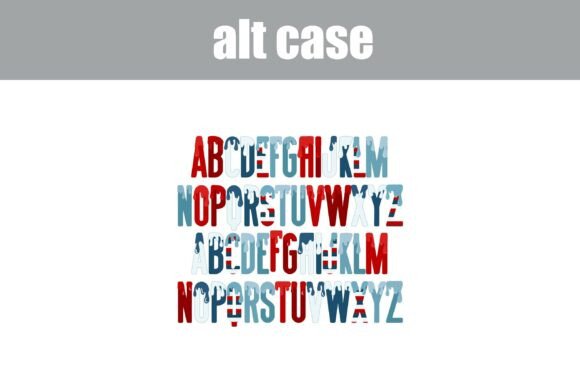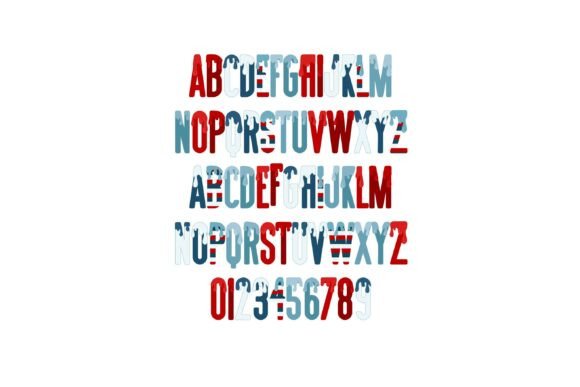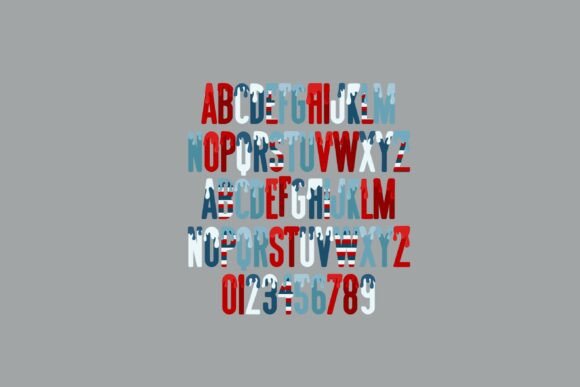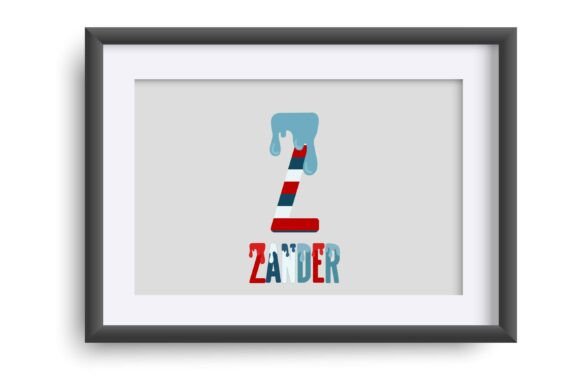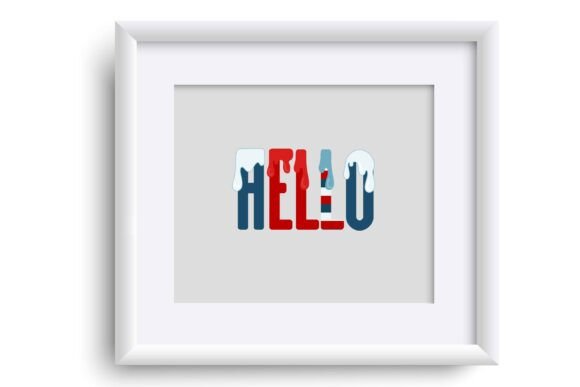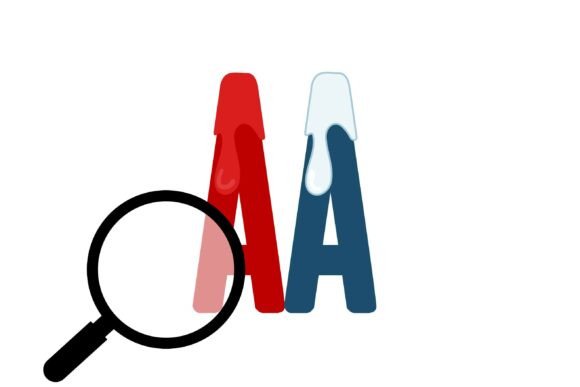
Introducing the Art Party Patriot Font: A Vibrant and Versatile Addition to Your Design Arsenal
Are you tired of using the same old fonts in your designs? Look no further than the Art Party Patriot Font, a full-color font that is sure to add a touch of personality to your projects. This exciting font features a thin sans serif design covered in paint in American colors, making it perfect for patriotic designs, DIY crafts, and more.
What Sets the Art Party Patriot Font Apart?
Alternate Colorings and Glyph Map Access
One of the most exciting features of the Art Party Patriot Font is its alt case of alternate colorings for each letter. This means that you can access a range of different colors and styles to add some extra personality to your designs. To access these alternate colorings, you can use your system’s glyph map or Silhouette’s glyph map. This feature allows you to customize your designs and make them truly unique.
Tips for Using the Art Party Patriot Font
So, how can you get the most out of the Art Party Patriot Font? Here are a few tips:
- Use it for patriotic designs: With its American colors and fun design, this font is perfect for Memorial Day, Fourth of July, or other patriotic holidays.
- Experiment with different colors: With a range of alternate colorings to choose from, don’t be afraid to get creative and try out different looks.
- Pair it with other fonts: The Art Party Patriot Font works well with other sans serif fonts, so try pairing it with a bold font for a fun and modern look.
Adding Personality to Your Designs
Full-color SVG fonts like the Art Party Patriot Font are the perfect way to add a touch of personality to your designs. With a full range of colors and styles to choose from, you can create anything from simple text labels to complex, multi-colored designs. Whether you’re a designer, crafter, or DIY enthusiast, this font is sure to inspire you to try something new.